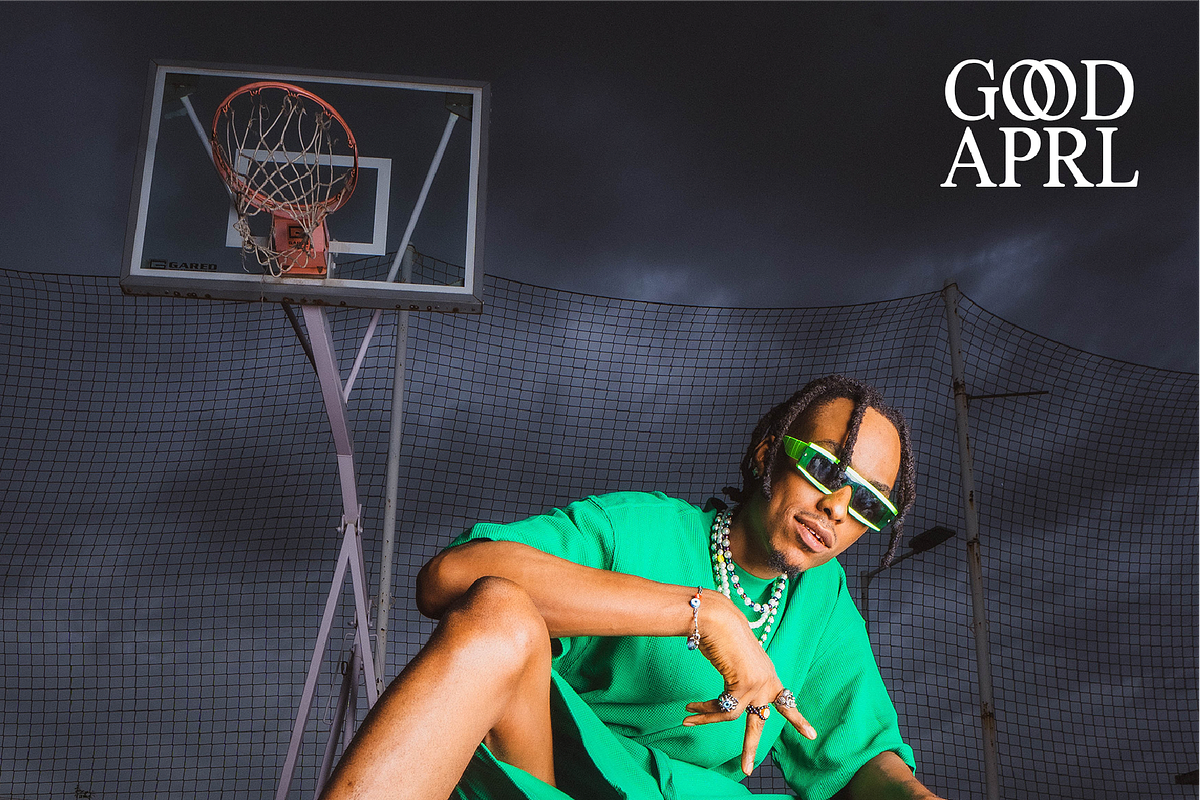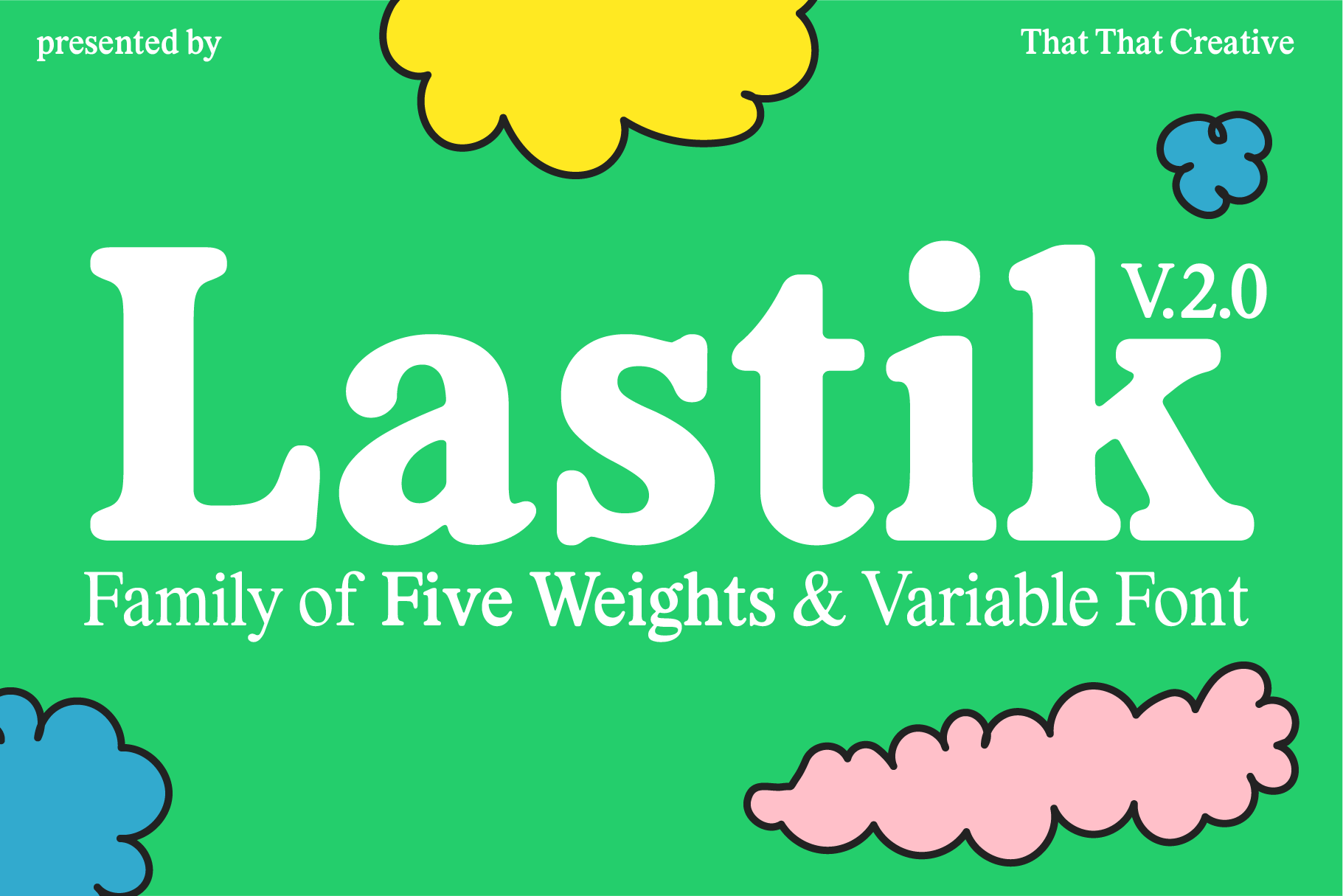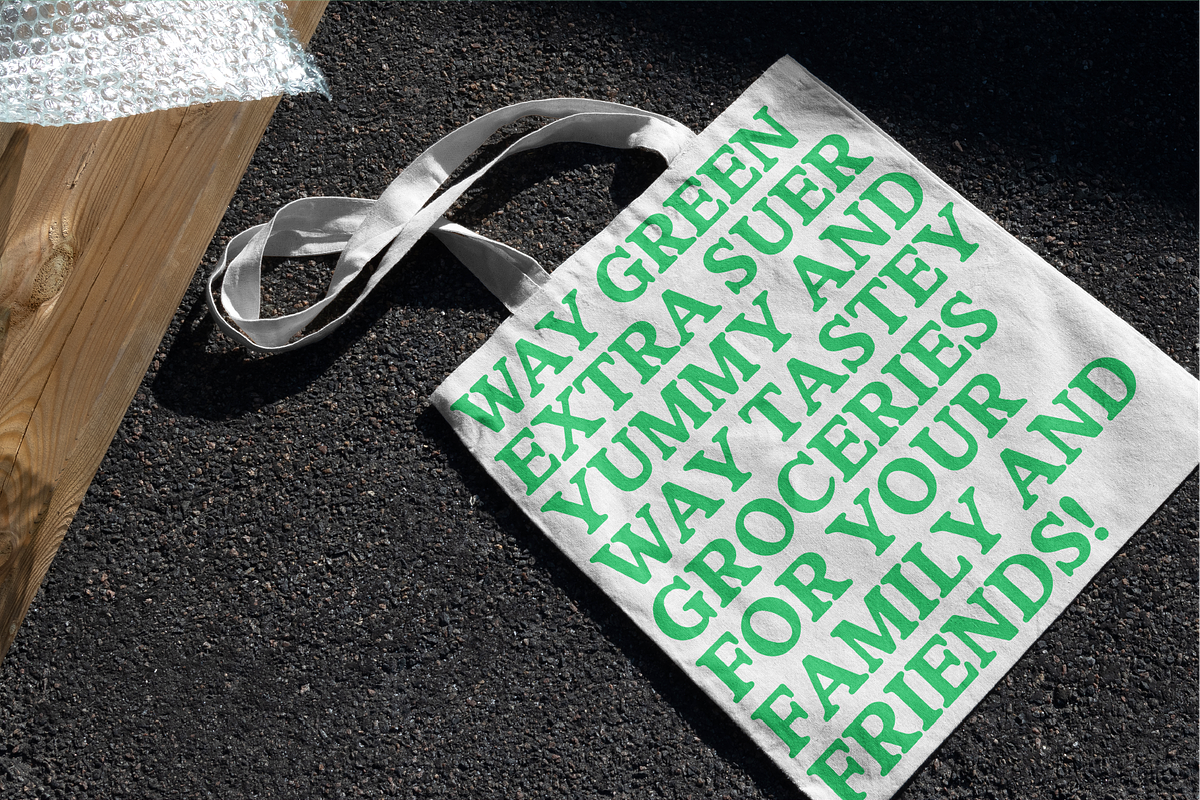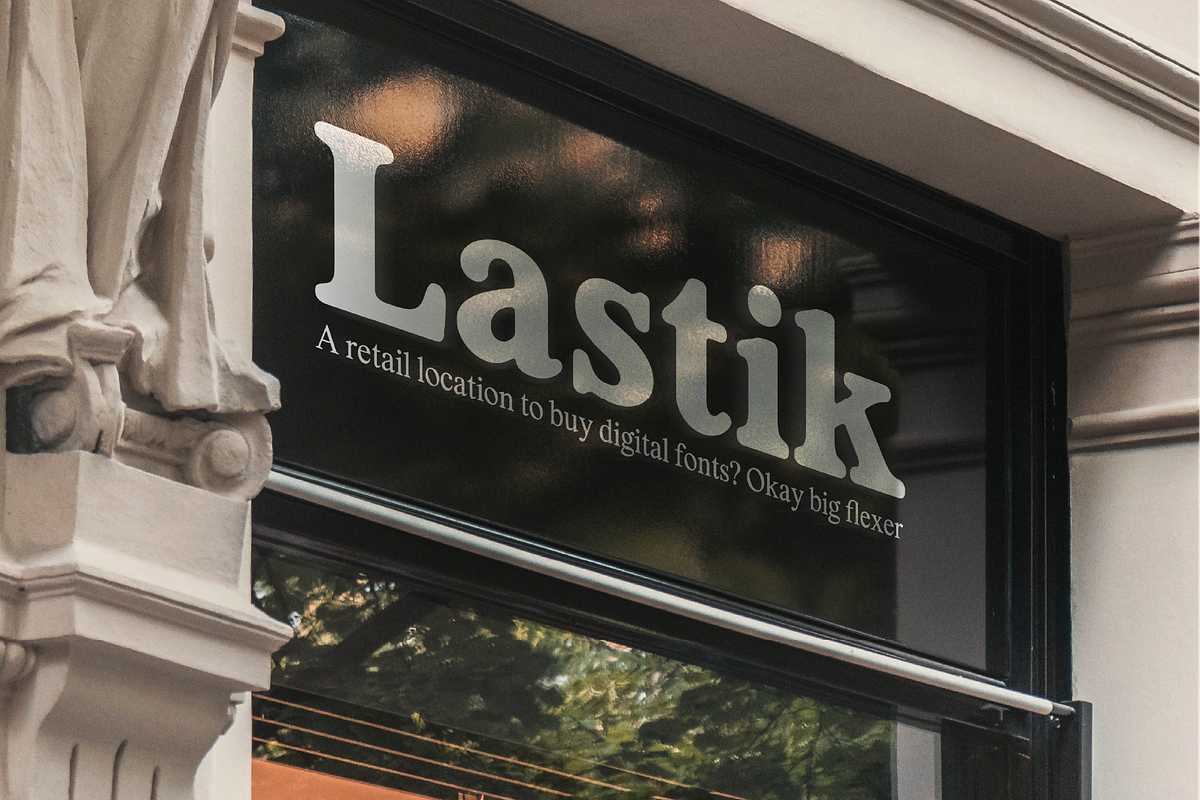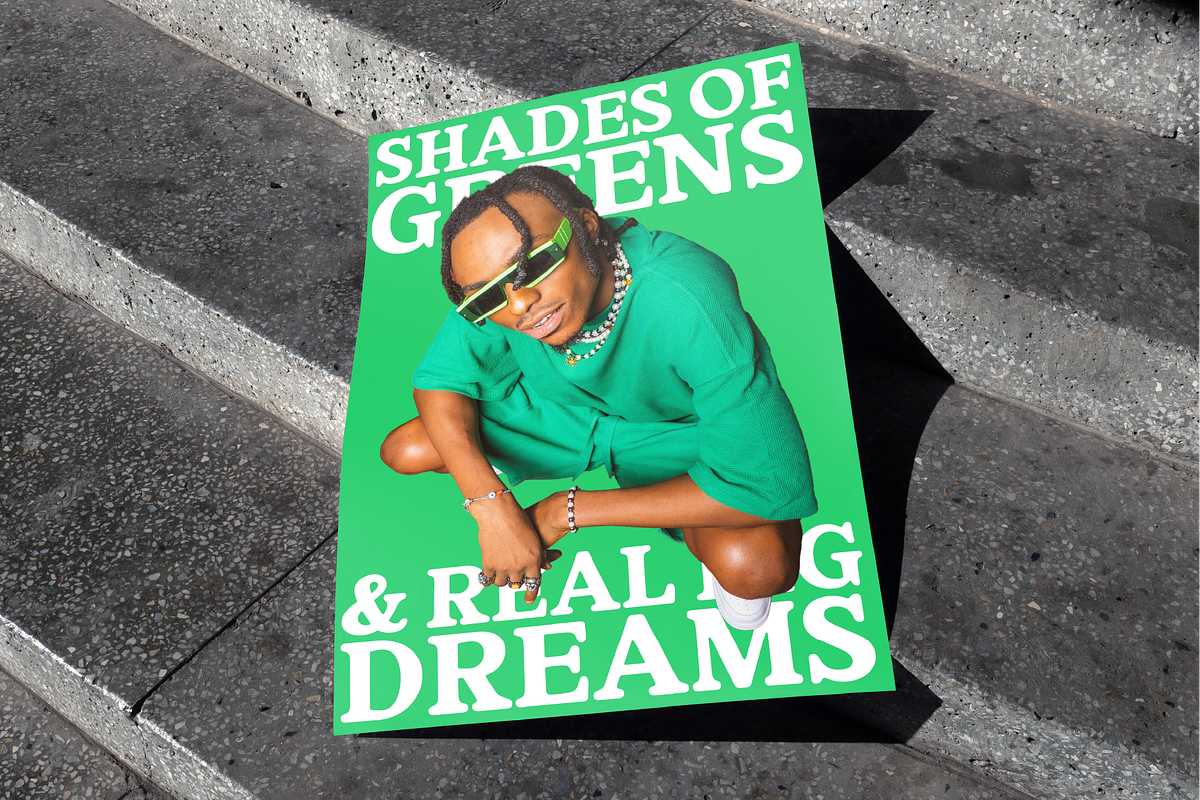
Lastik Font Family 5 Styles
Lastik is a real work horse of a font. It includes 5 styles that cover all you need from Display Fonts to body copy fonts. This font comes from the idea of an approachable, friendly fun serif font. The font takes inspiration from old scholastic materials form the late 90s and early 2000's.
This font is loaded with features from small caps, to alternate style sets for numbers, case sensitive punctuations, and contextual alternatives. as well as support for over 120 Languages, and finally it's variable, so you can dial in the exact weight you need.